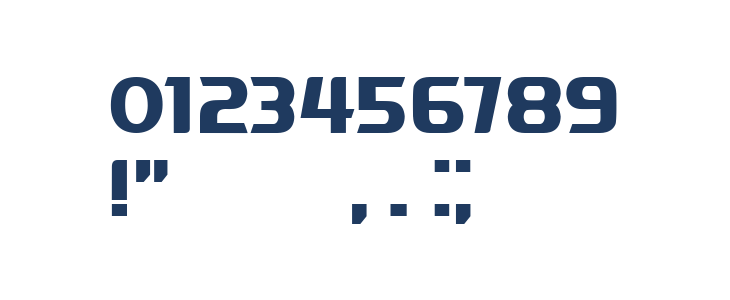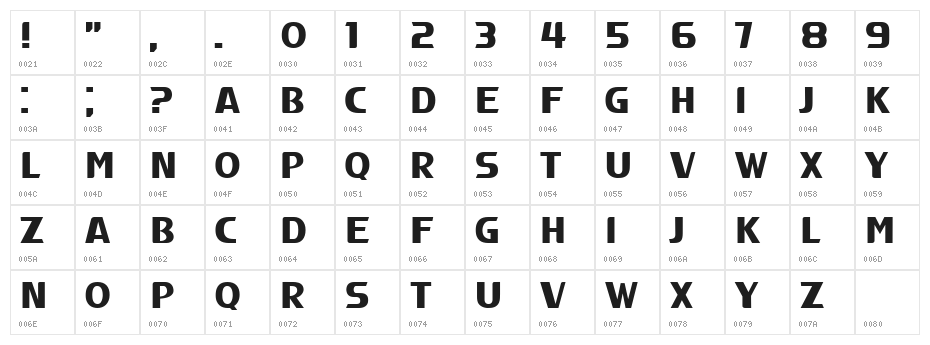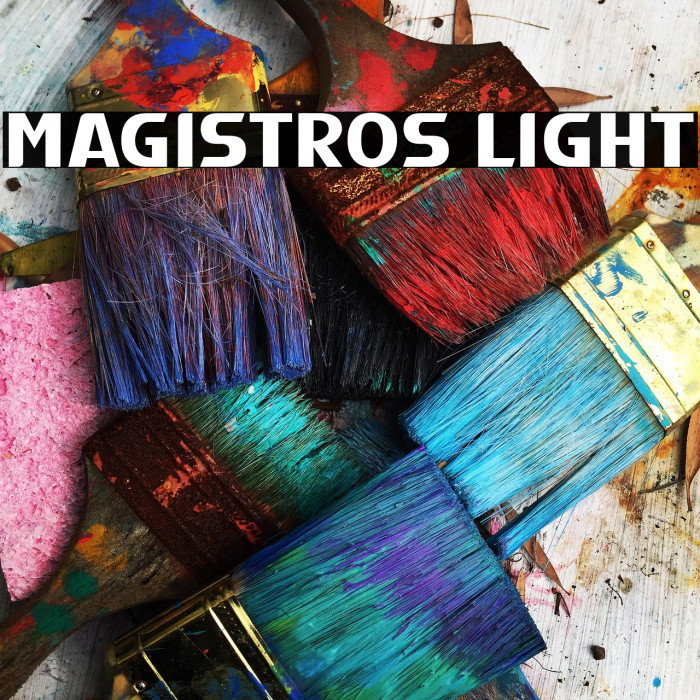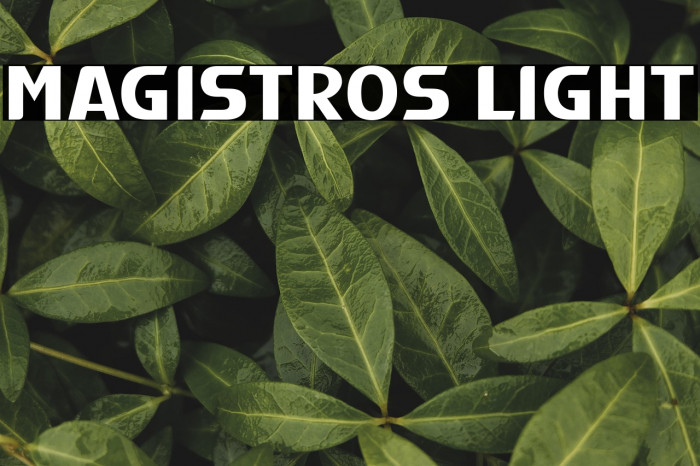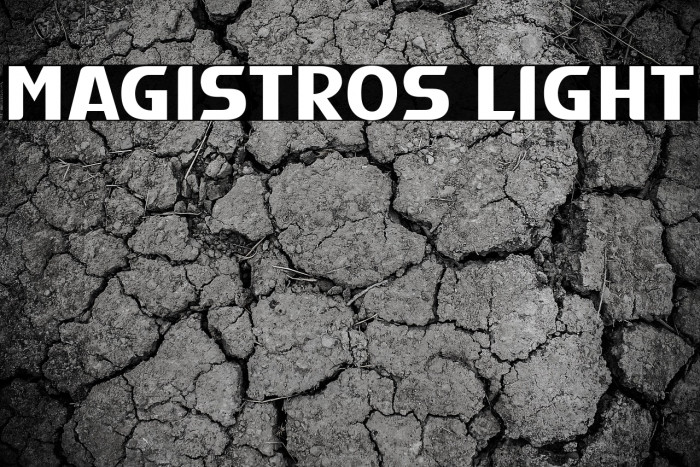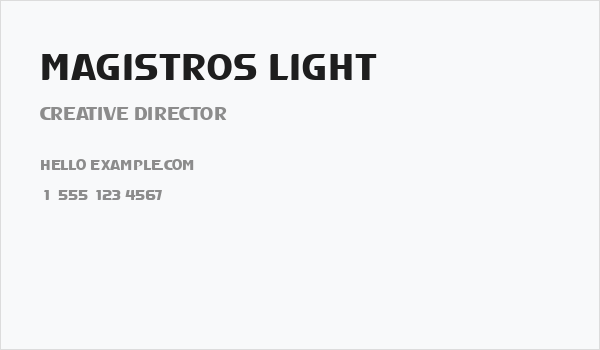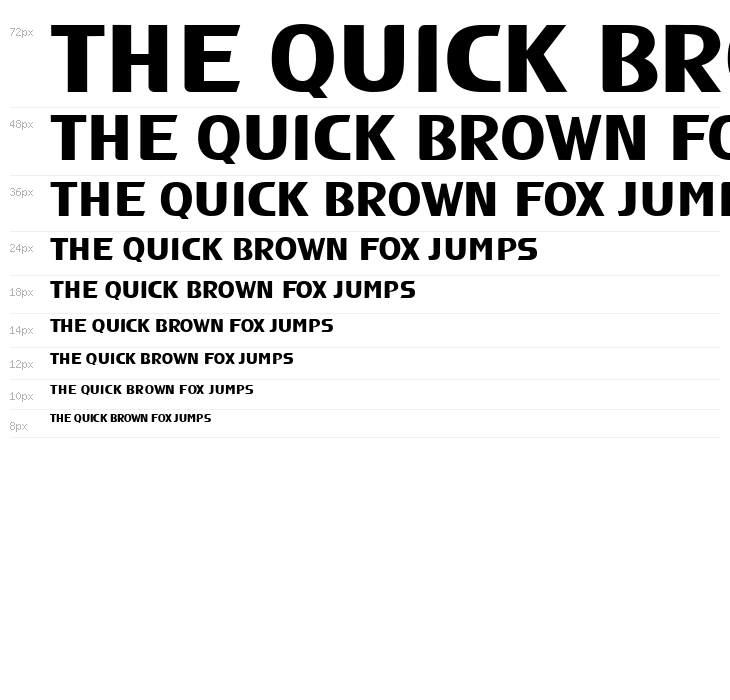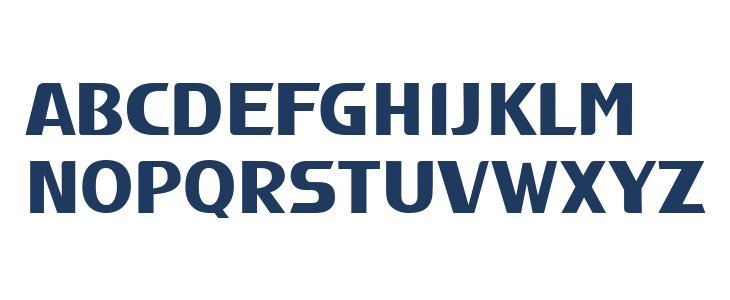
Magistros Light Font
Magistros Light Description
This font features a bold and modern design with clean, geometric lines. The uppercase letters are strong and assertive, while the lowercase letters maintain a consistent style that complements the uppercase. The numerals are distinct and easy to read, making them suitable for a variety of applications. The special characters are well-integrated, ensuring a cohesive look across all text elements. The overall appearance is sleek and professional, making it ideal for contemporary design projects.